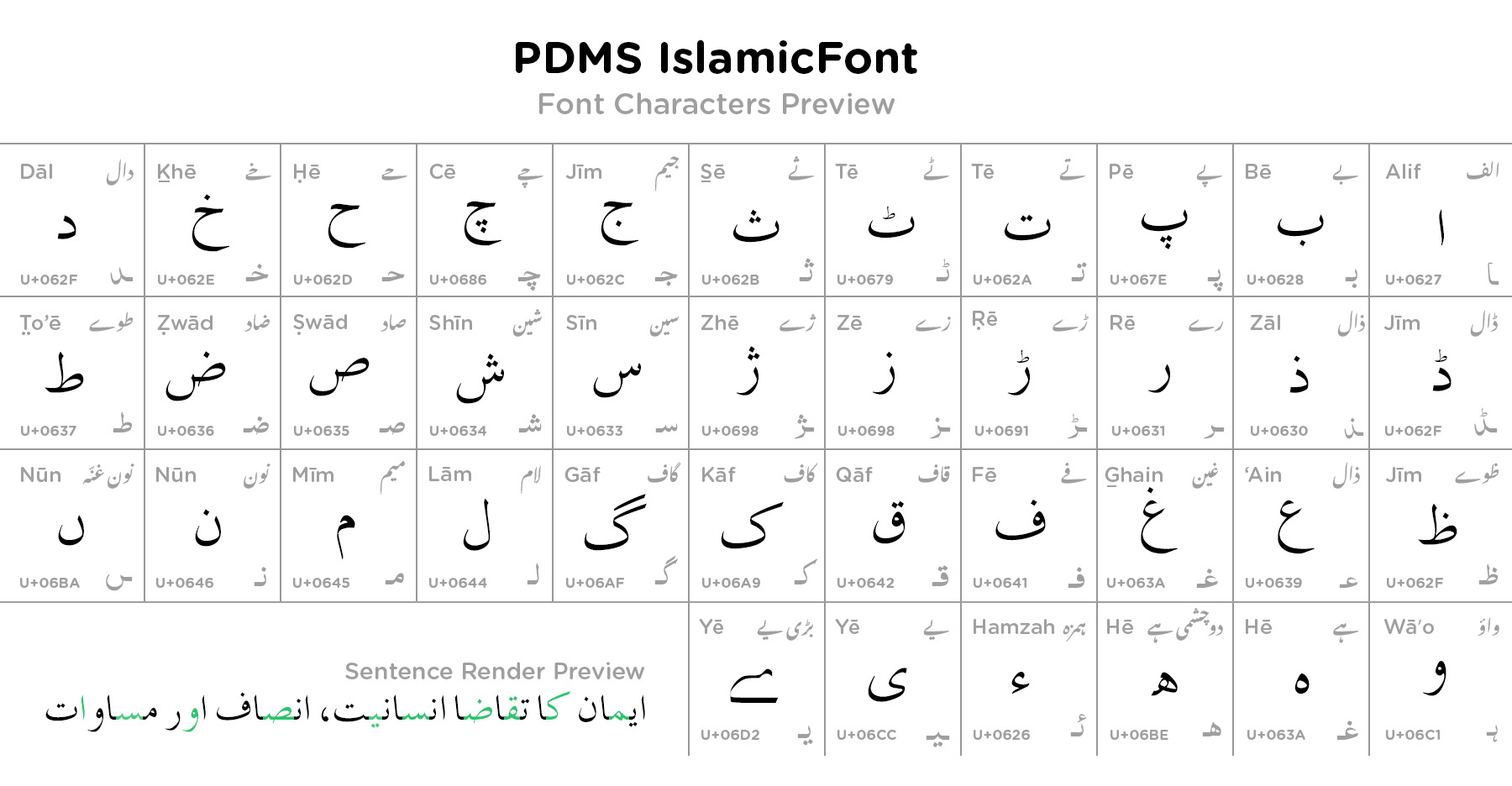
Released on November 14, 2019, the PDMS Islamic font was developed by Pakistan Data Management Services. It’s a Qalam Writing font with soft, rounded letterforms and thick, blunt terminals. Inspired by the Naskh script with modern influences, this font offers versatility and elegance in its design. PDMS Islamic font features 625 characters and 645 glyphs, catering to languages like Urdu, Arabic, Latin, and Hebrew. Its Unicode support includes Basic Latin, Latin-1 Supplement, Latin Extended-A, and more, ensuring compatibility across different platforms. With two font weights including:
Its high legibility on screens and organized look, with varying thickness throughout the letters, make it suitable for a wide range of applications. Best suited for posters, Islamic texts, Quran writing, invitations, and newspaper headlines, PDMS Islamic font offers a balanced blend of aesthetics and functionality. Its thick, dynamic strokes and impactful yet changing strokes add visual interest, while straight vertical characters ensure readability. Whether used for short headlines or long editorial texts, this font lends a touch of sophistication to any design project.